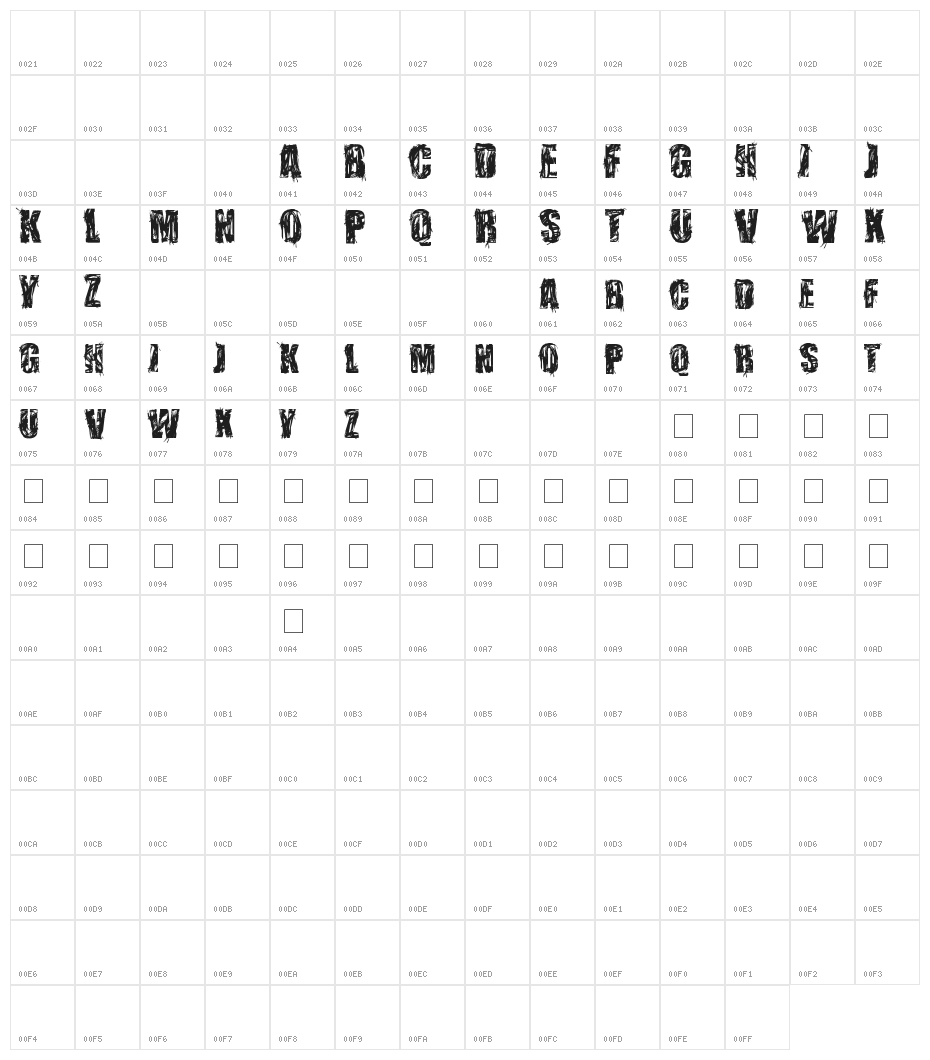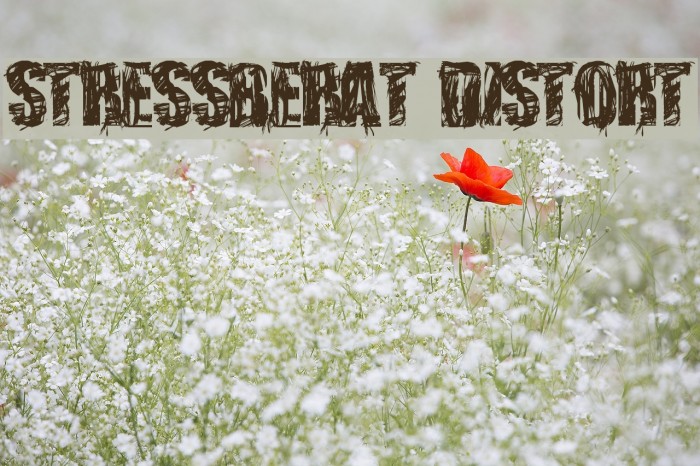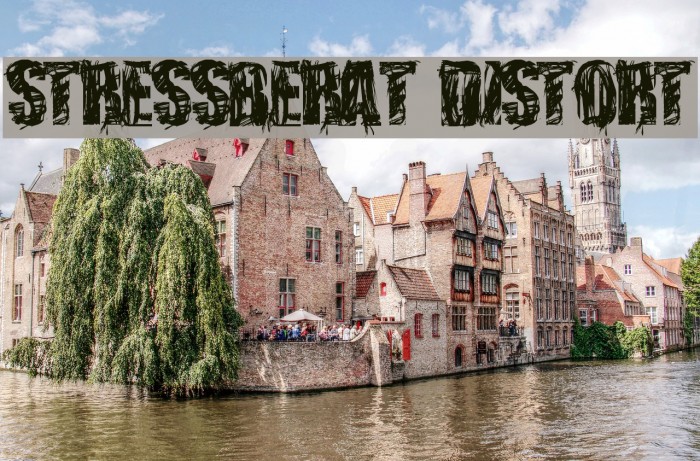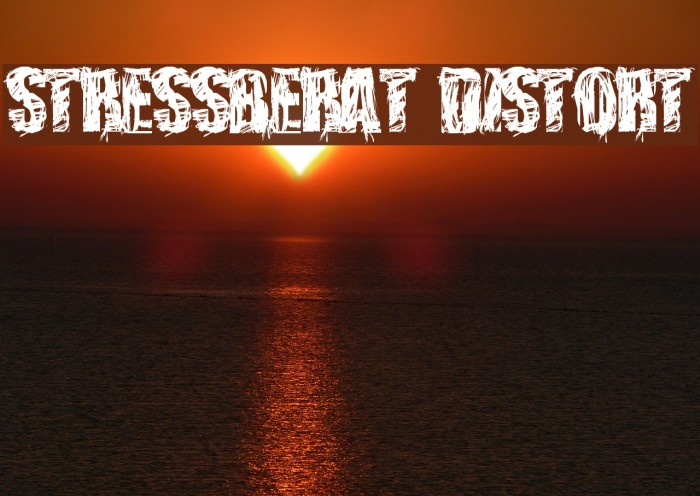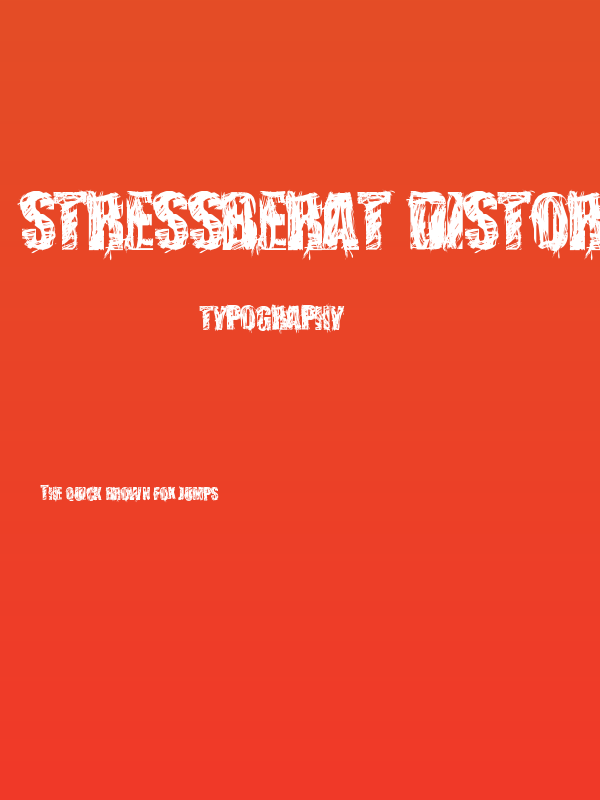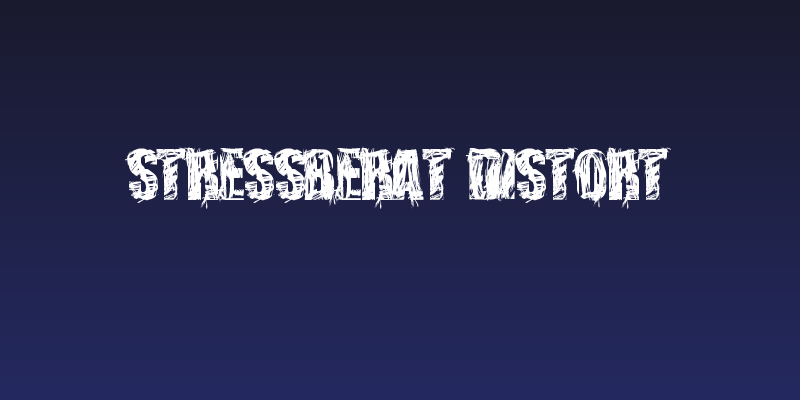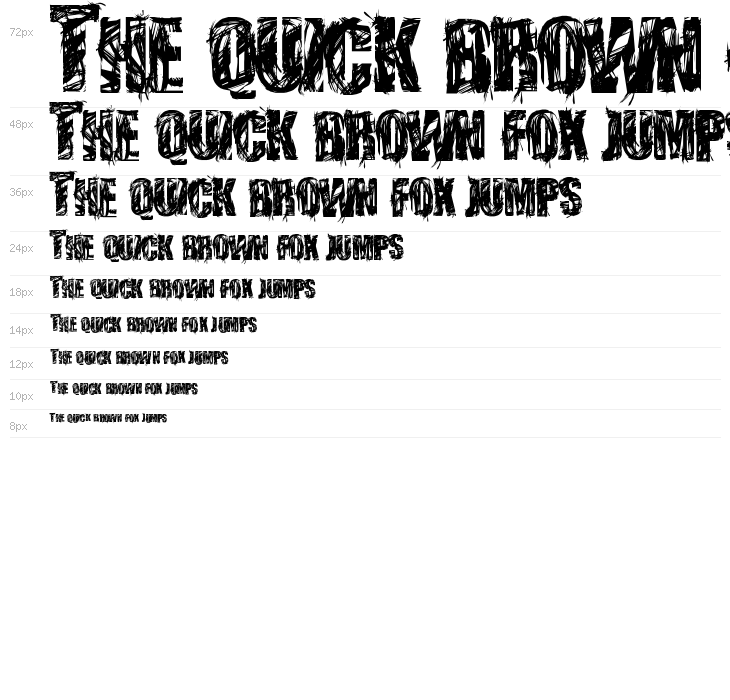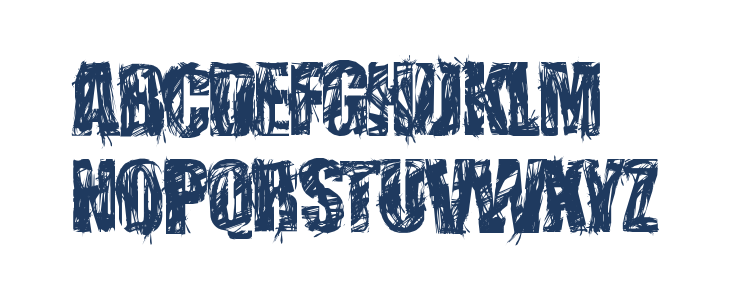
stressberat distort Font
stressberat distort Description
This font features a highly distressed and chaotic appearance, with each character appearing as if it has been scratched or scribbled with a rough texture. The letters are bold and heavily stylized, giving off an intense and edgy vibe. The irregular strokes and jagged edges contribute to a sense of movement and energy, making it stand out as a statement piece. This font is not suitable for body text due to its complexity but can be highly effective in designs that require a strong visual impact.
| Proposed Projects | Ideal for use in music album covers, horror movie posters, edgy branding projects, or any design that requires a dramatic and intense visual element. |